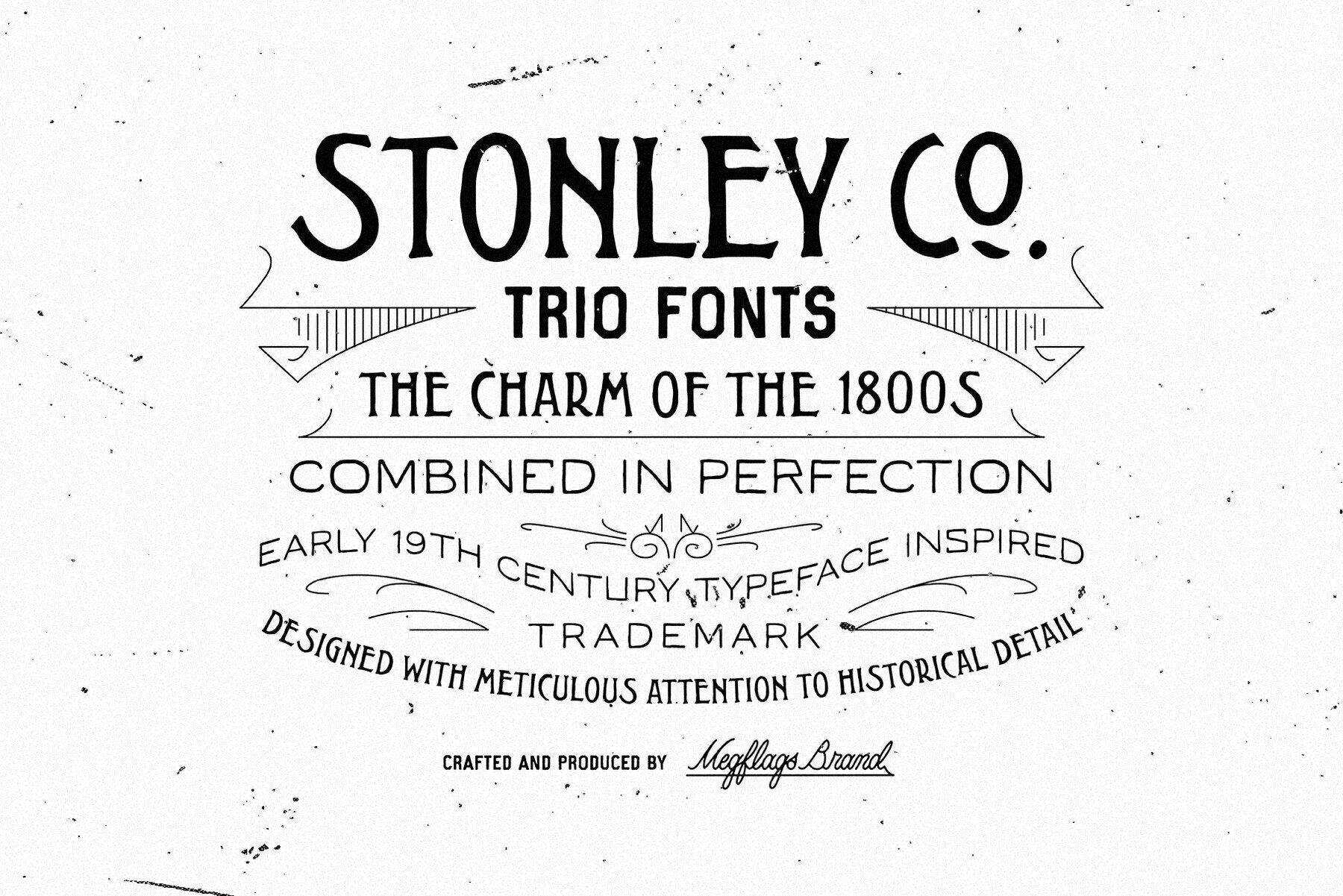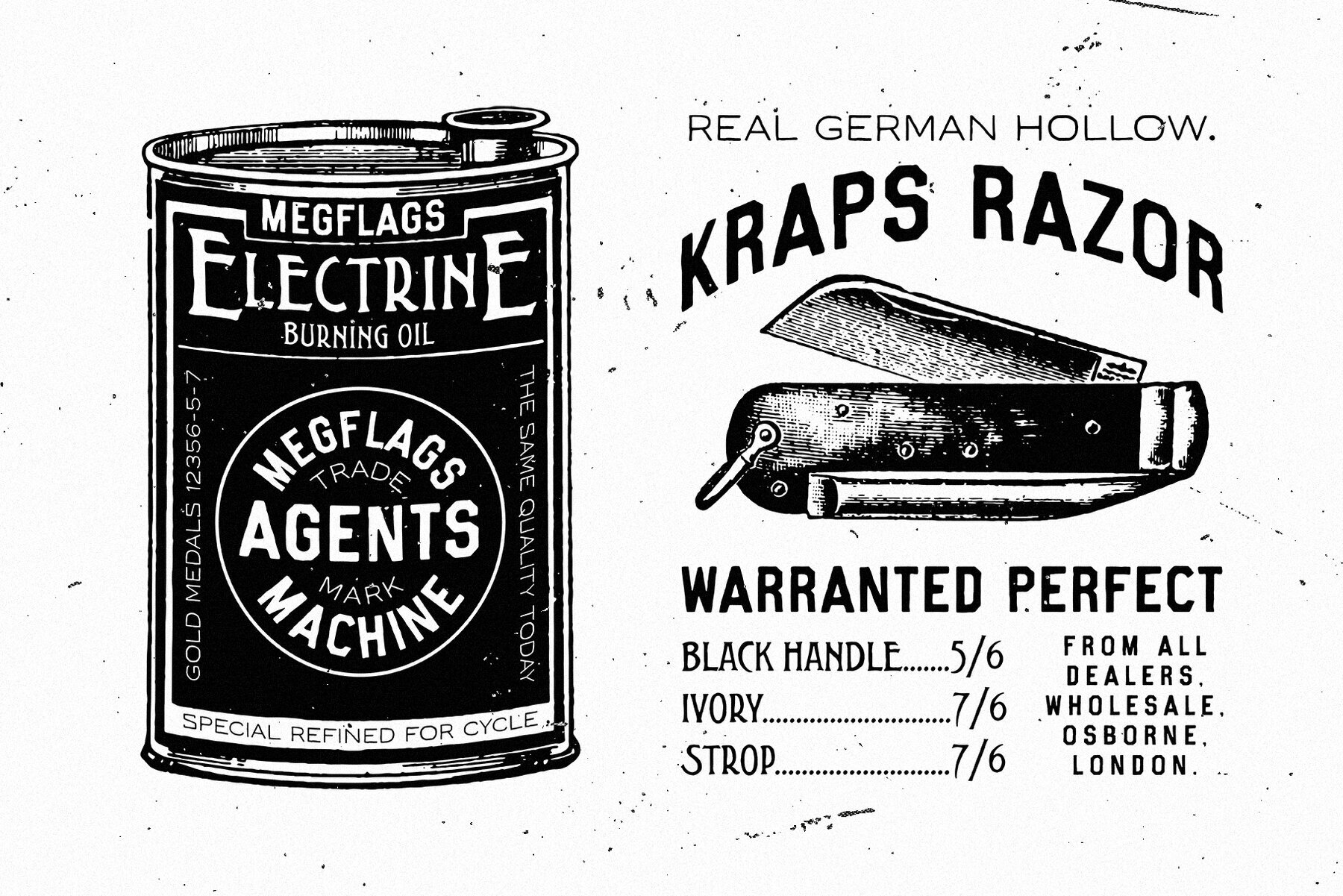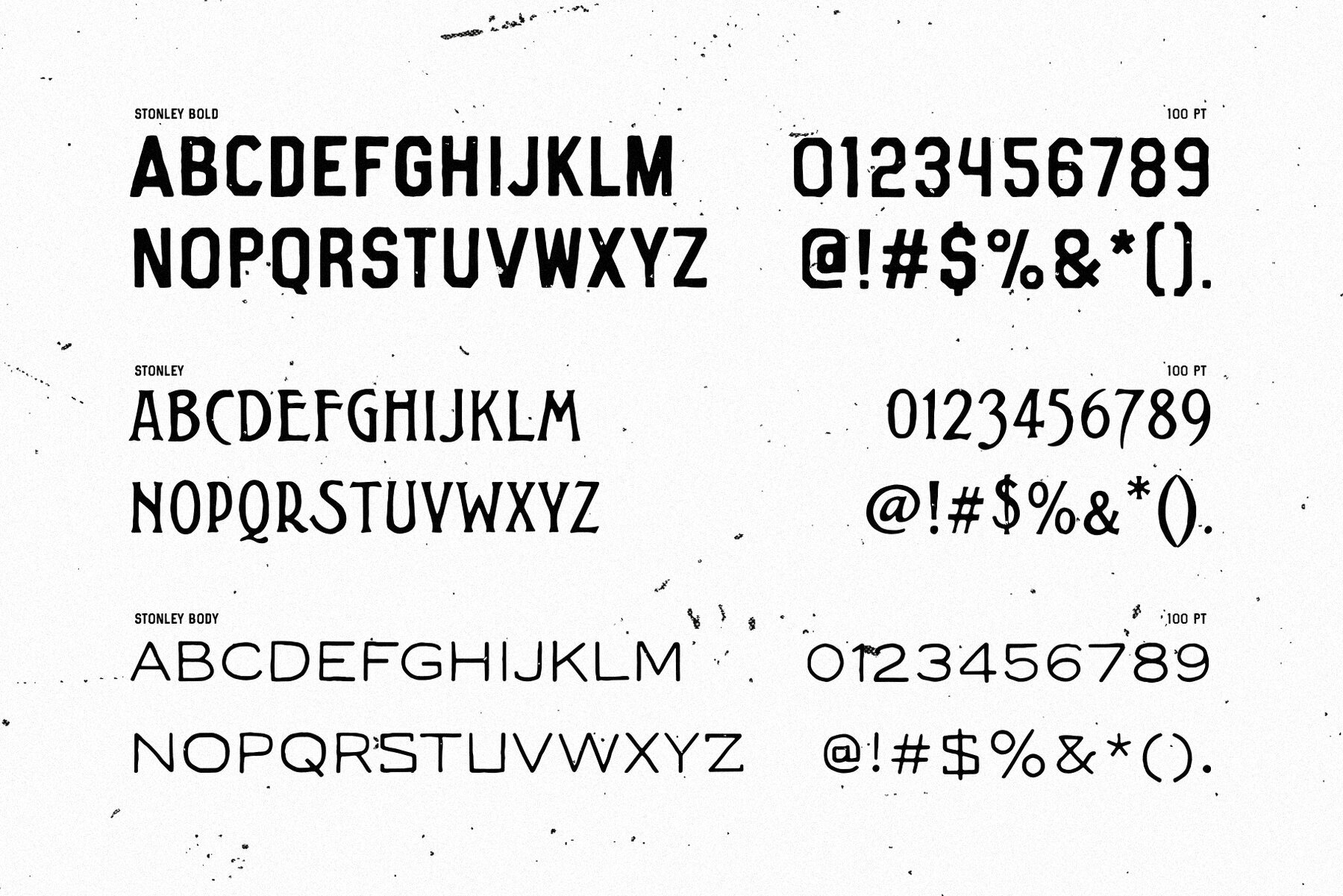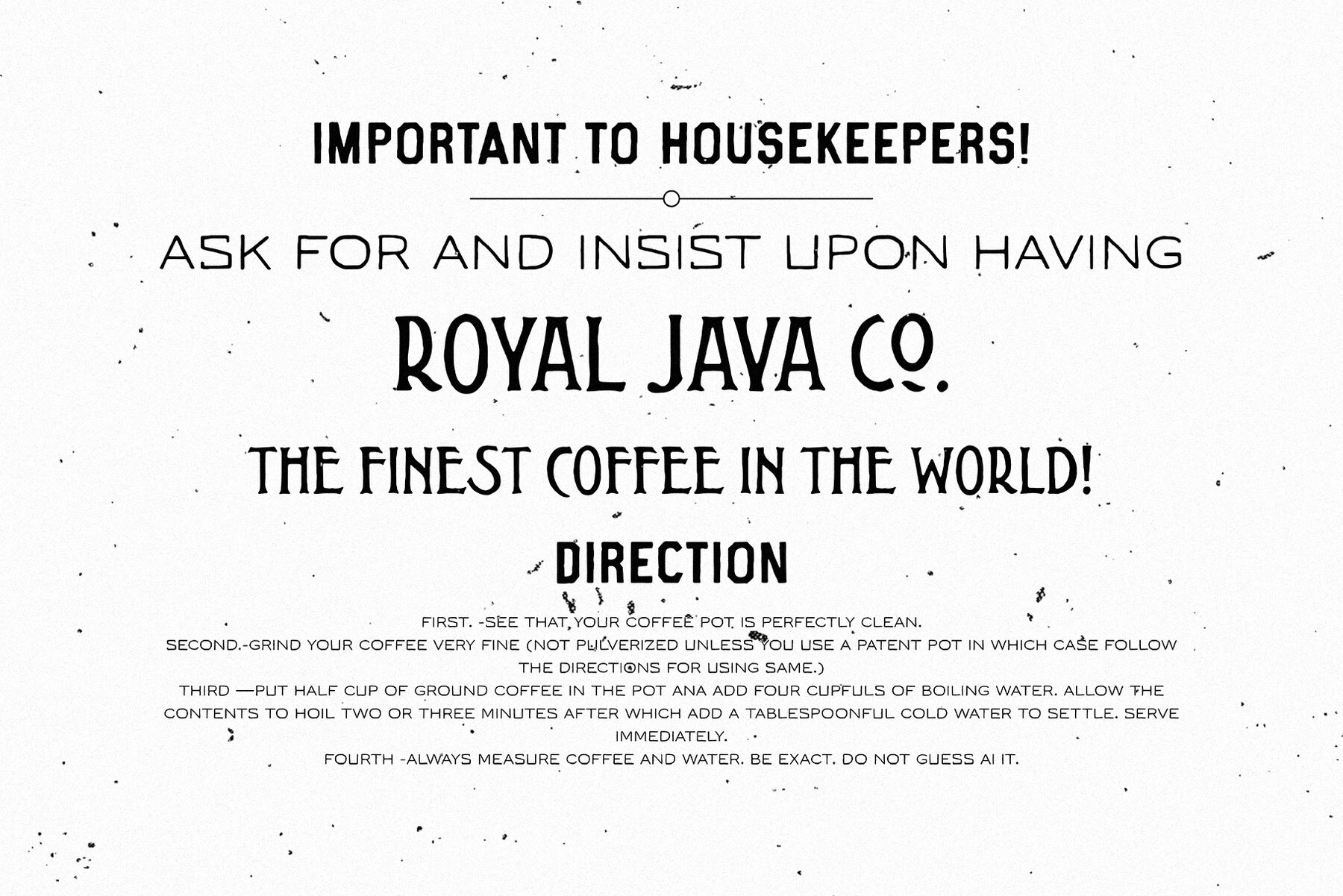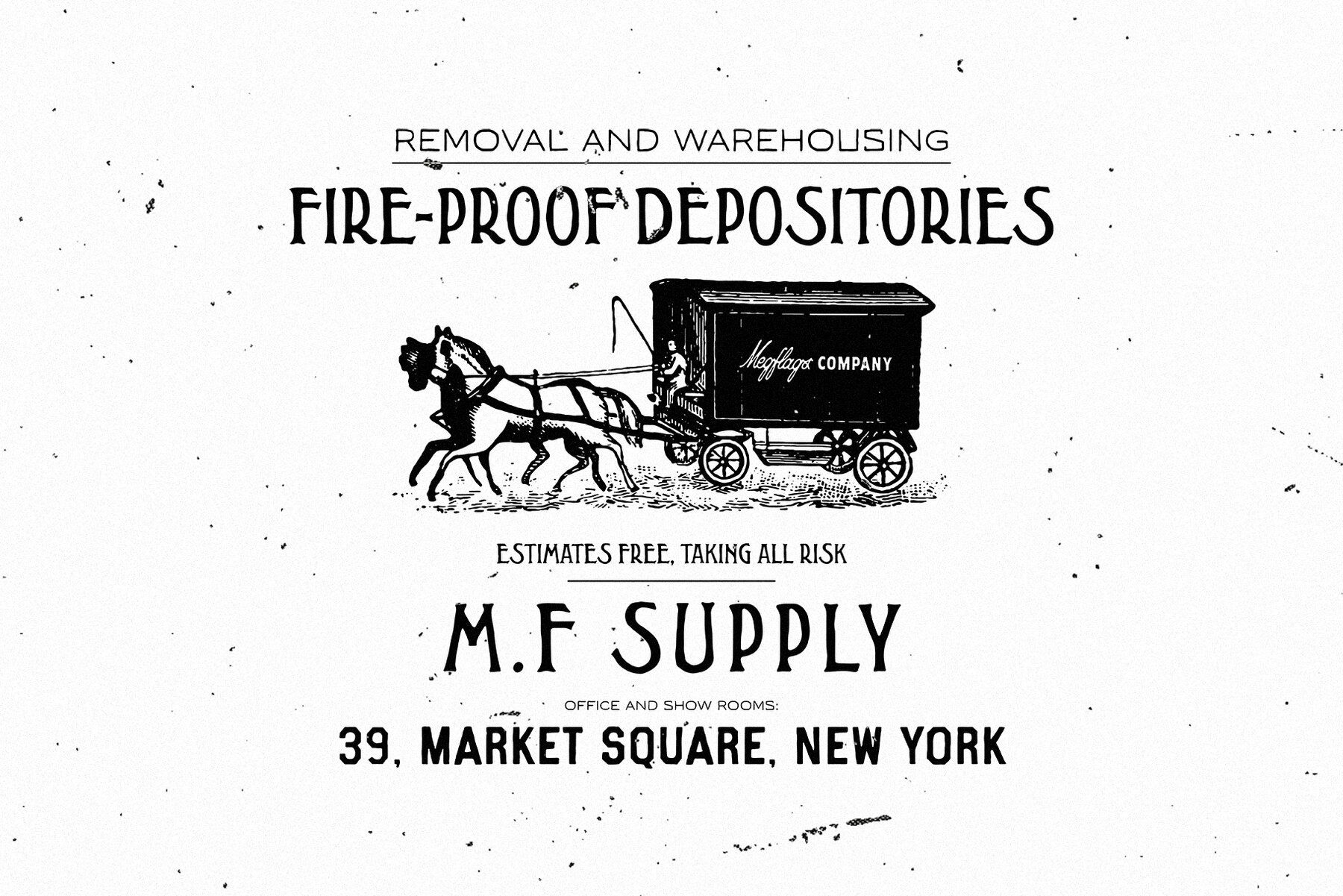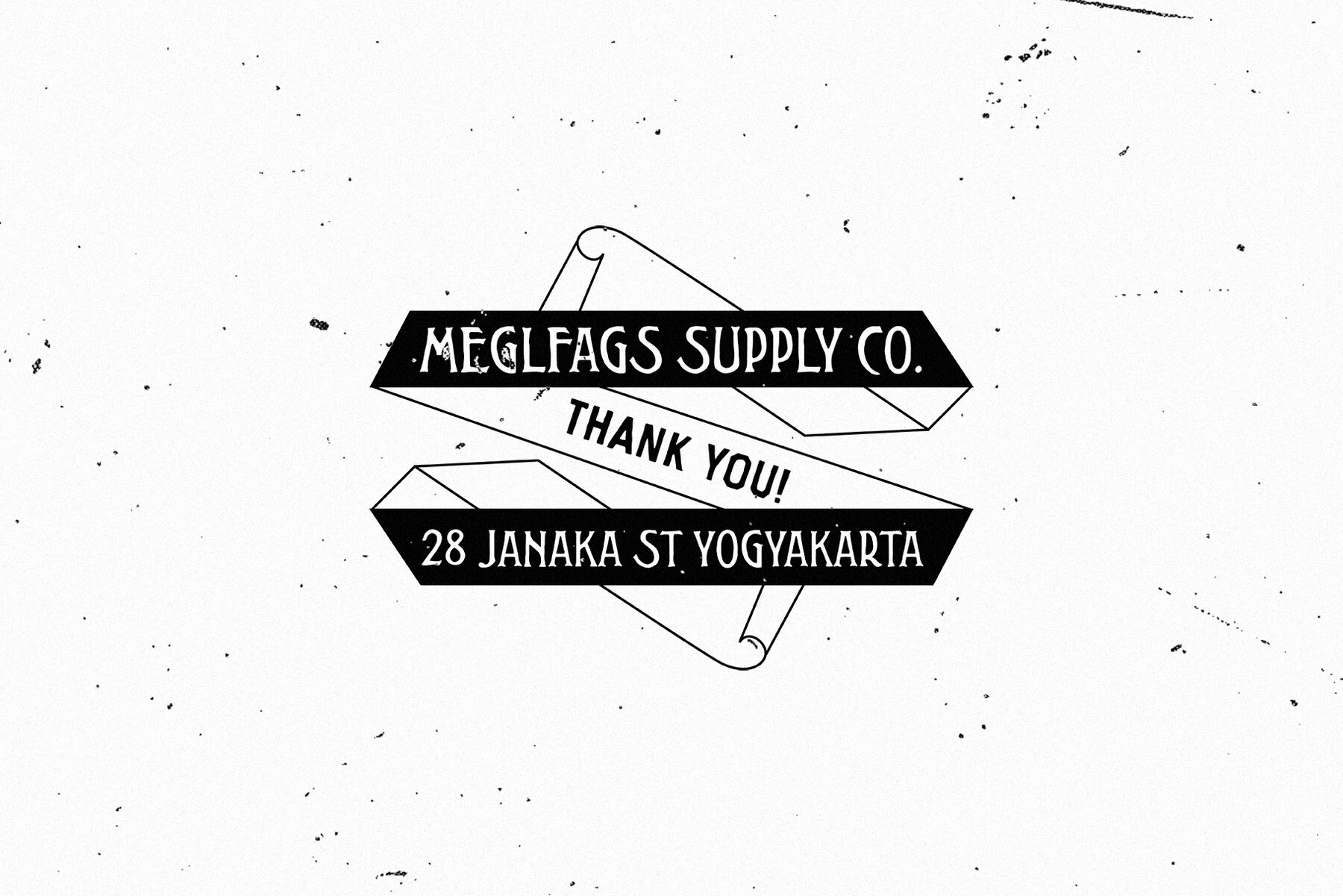
Stonley Font
Stonley
Stonley Bold
Stonley Body
Embrace the charm of yesteryears with Stonley, a typeface born from the elegance of 1800s advertising and timeless craftsmanship. Carefully crafted to embody the meticulous artistry of the early 19th century, this font breathes life into designs inspired by vintage posters, trade cards, and signage.Stonley: A Nod to 19th Century Typography
Megflags Brand Co. is known for its nostalgic approach to modern design. Founded by HOUS Studio, the brand creates fonts, templates, and illustrations crafted for the vintage-enthusiast designer. Each product blends aged texture with contemporary precision, reflecting a love of mid-century aesthetics and timel...